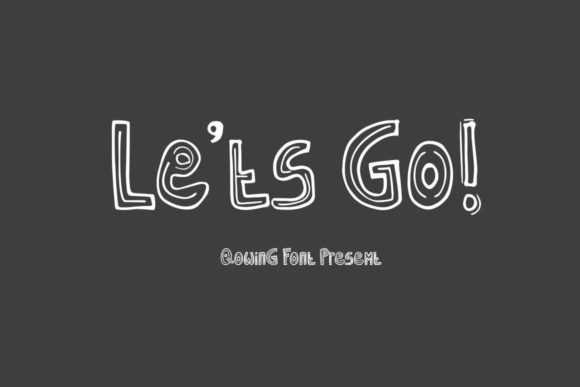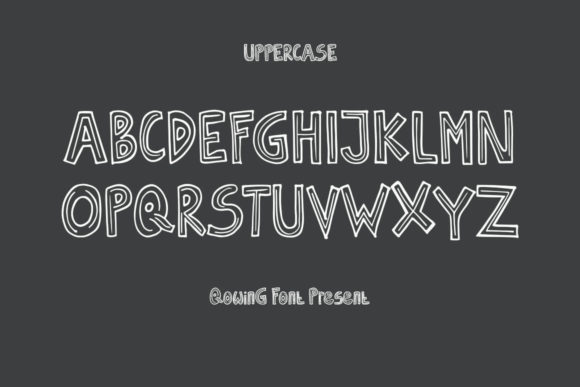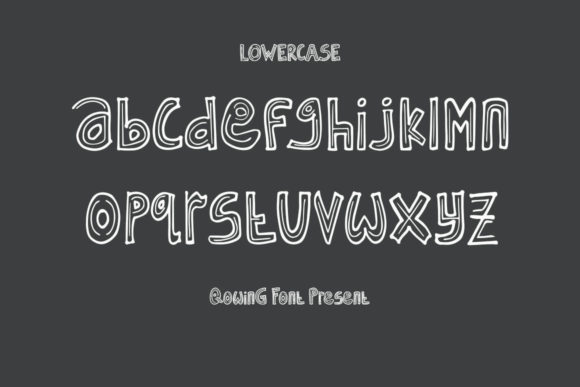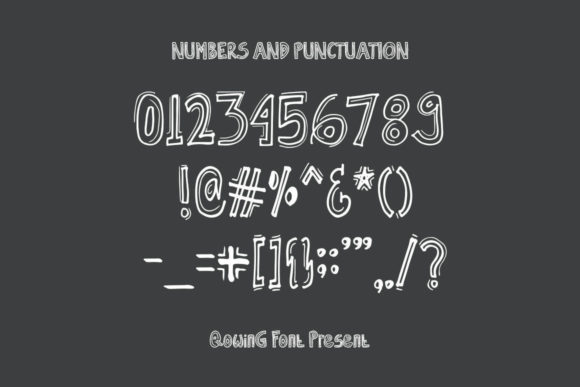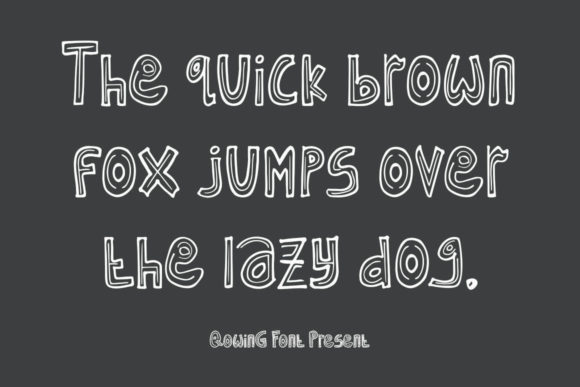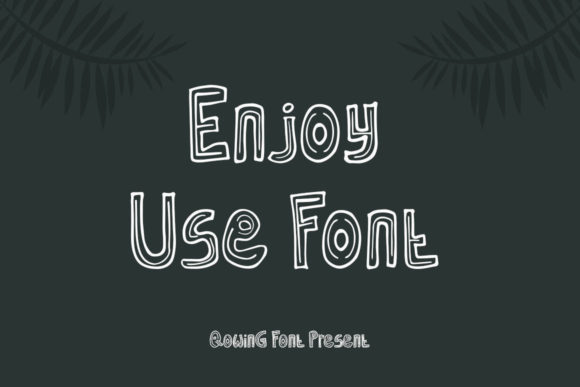
Introduction to Qowing Font
Remember that moment when you’re working on a creative project, and you just can’t seem to find the perfect font to match your vision? You browse through countless design resources, searching for that one high-quality font that will elevate your design to the next level. Well, we’ve got some exciting news for you – we’ve discovered a game-changing display font that’s about to become your new go-to design resource.
Meet the Qowing Font, a bold and incredibly unique display font that’s sure to add a touch of personality to any design. With its chunky lettered and friendly style, this font is incredibly versatile, fitting a wide range of designs. Whether you’re working on a commercial project or a personal creative endeavor, the Qowing Font is the perfect addition to your design toolkit.
Key Features of Qowing Font
- Unique, handcrafted design with intricate details and subtle textures
- Perfect for use in logos, branding, and other visual identity projects
Honest Review: Qowing Font
I recently stumbled upon the Qowing Font, and I must say it’s a fantastic addition to my design resources. The Qowing Font offers a high-quality design that can elevate any creative project.
What works well is the variety of styles it offers, which allows designers to experiment with different looks and feels. The font’s transparent background also makes it easy to layer and blend with other design elements.
- ✨ The font’s versatility and flexibility make it suitable for various design projects, from digital to print.
However, I do have to mention some limitations. The Qowing Font may not be suitable for projects that require extreme customization or complex layouts.
- ⚠️ Some users may find the font’s transparent background too delicate for certain design applications.
Overall, I’m impressed with the Qowing Font’s potential and its ability to enhance my design projects. It’s a great resource to have in your design arsenal, and I highly recommend it to fellow designers.
Getting the Most Out of Qowing Font
Experiment with different font sizes, colors, and styles to enhance the visual impact of your design. Use it in conjunction with other design elements to create a cohesive look.
The Qowing Font is ideal for:
Branding and logos
Infographics and data visualization
Editorials and publications
Advertising and marketing materials
Alternatives to Qowing Font
Great Vibes Font is a high-quality, creative font perfect for designers working on a project that requires a touch of elegance and sophistication. It features a transparent background, making it ideal for use on websites and other digital design projects.
Use Great Vibes Font for: wedding invitations, luxury brand designs, and other high-end creative projects.
Compared to Qowing Font, Great Vibes Font has a more refined and polished look, making it suitable for more formal and professional designs.
Dancing Script Font is a playful and elegant script font that’s perfect for designers working on a creative project that requires a touch of whimsy and personality. It features a range of styles and weights, making it highly customizable.
Use Dancing Script Font for: wedding invitations, birthday party invitations, and other creative projects that require a touch of playfulness.
Compared to Qowing Font, Dancing Script Font has a more dynamic and expressive look, making it suitable for projects that require a high level of creativity and imagination.
Alex Brush Font is a beautiful and elegant script font that’s perfect for designers working on a project that requires a touch of sophistication and refinement. It features a range of styles and weights, making it highly customizable.